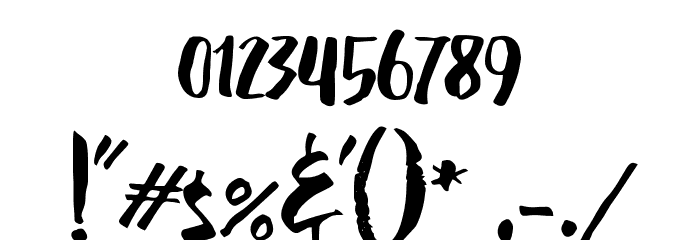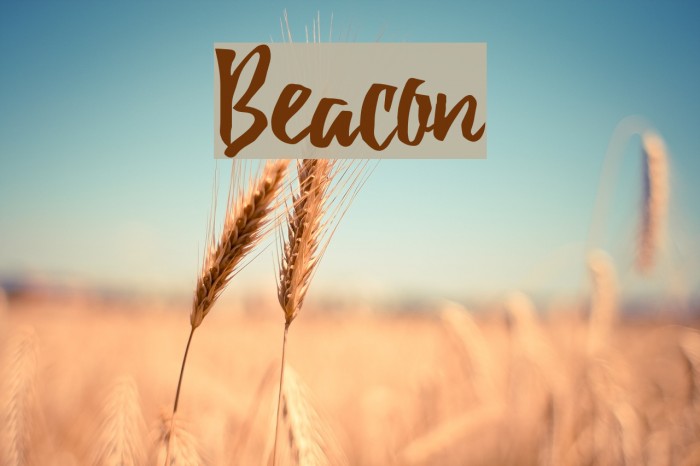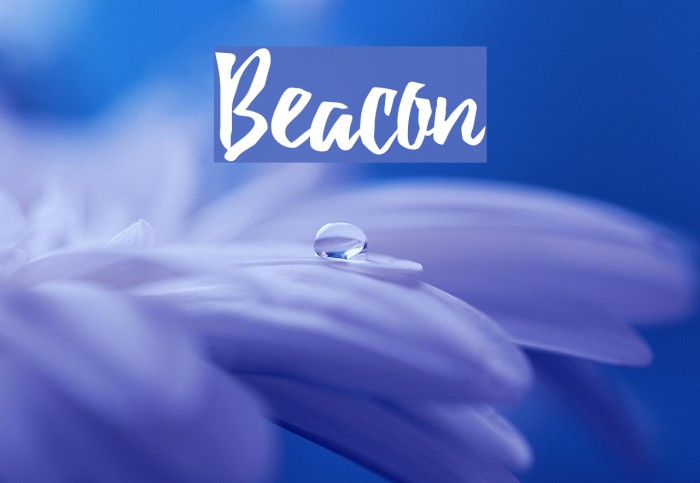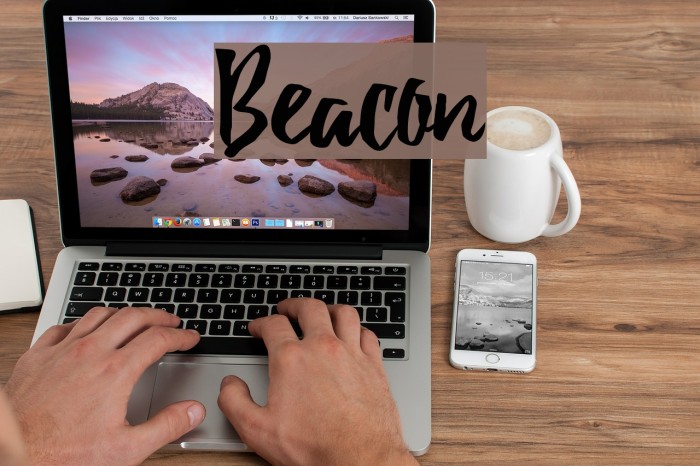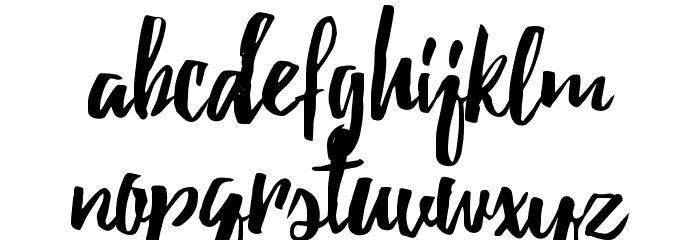
Beacon Font
Beacon Description
This font features a bold, expressive style with a hand-painted appearance, characterized by its thick, uneven strokes and dynamic flow. The uppercase letters are robust and commanding, while the lowercase letters maintain a playful yet sophisticated script-like quality. Numbers and special characters follow the same bold and artistic design, making them stand out. The overall aesthetic is both modern and artistic, suitable for creative projects that require a personal touch. The font's irregularities and brush-like texture give it a unique charm, making it ideal for designs that aim to convey creativity and individuality.
- Proposed Projects: Ideal for branding, posters, invitations, and any design that requires a creative and artistic flair.
- Overall Style: Modern, Artistic